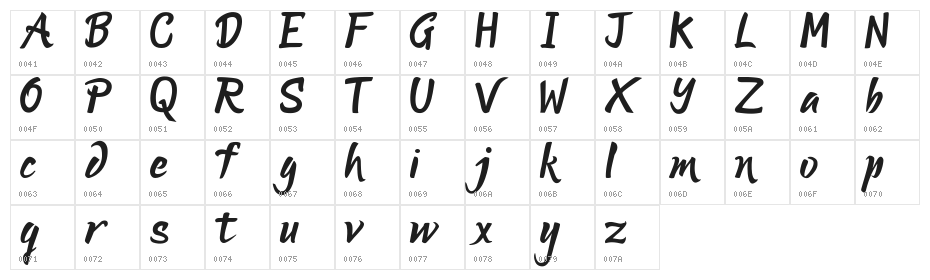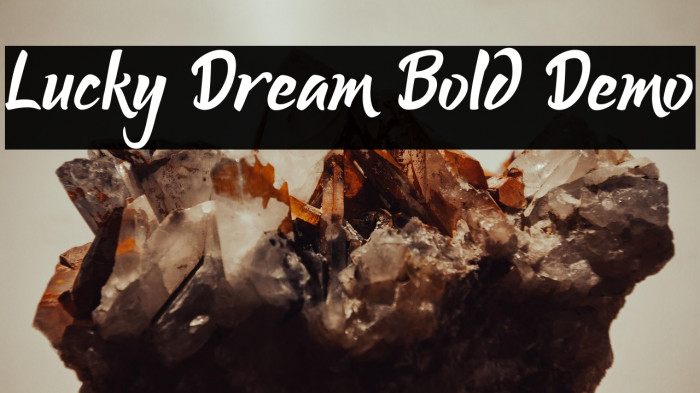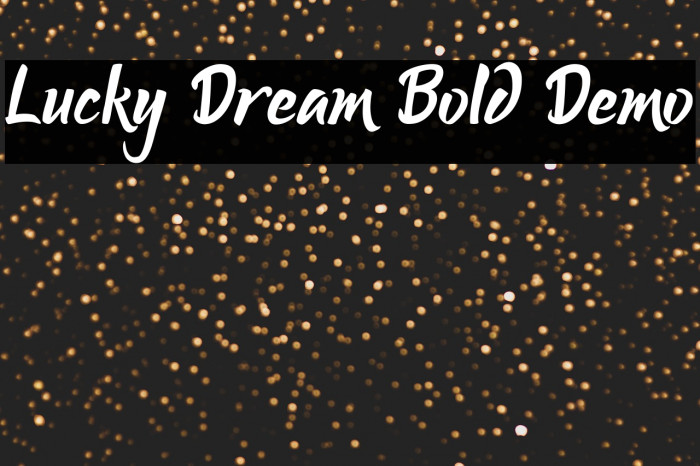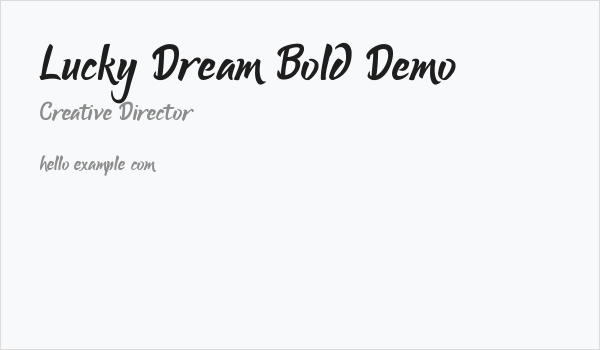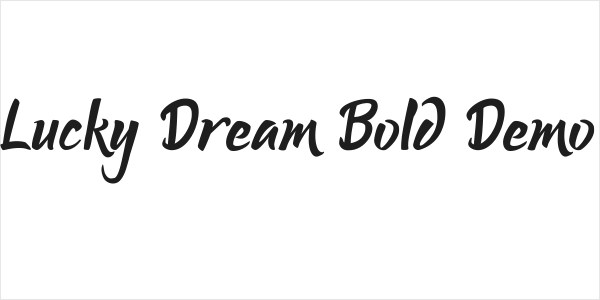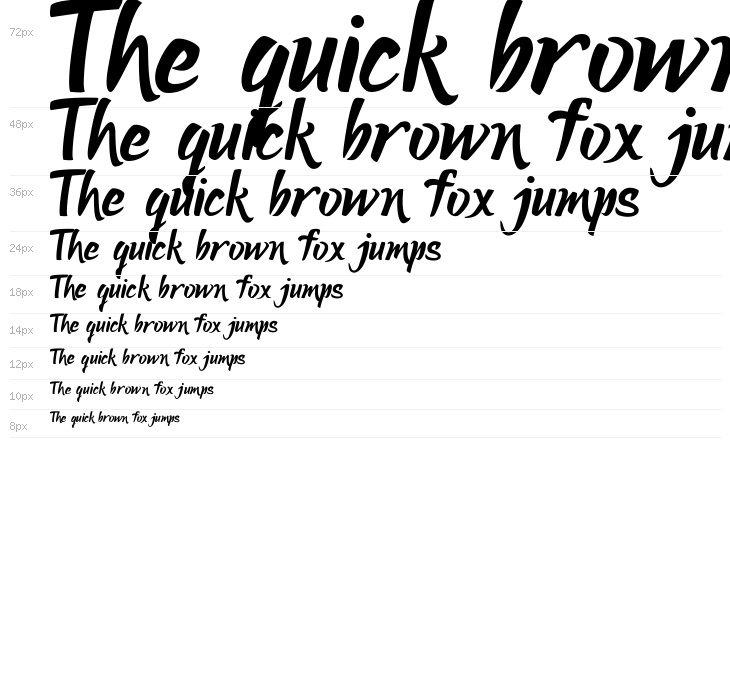
Lucky Dream Bold Demo Font
Lucky Dream Bold Demo Description
This font features a bold and expressive script style, characterized by its flowing, cursive letterforms. The uppercase letters are slightly slanted, adding a dynamic and energetic feel. The lowercase letters maintain a consistent flow, with some characters extending below the baseline, enhancing its handwritten appearance. The strokes are thick and uniform, providing a strong visual impact. This font combines a playful and artistic vibe, making it suitable for creative projects. Its bold nature ensures readability while maintaining a unique and stylish look.